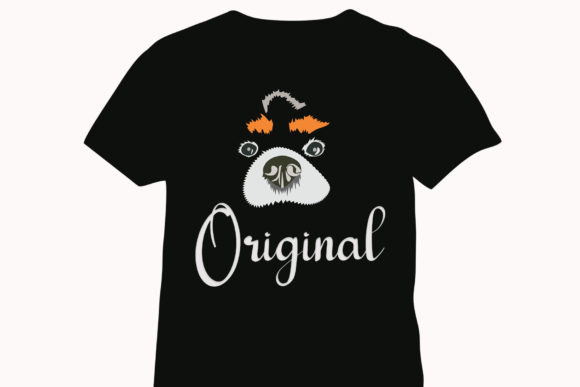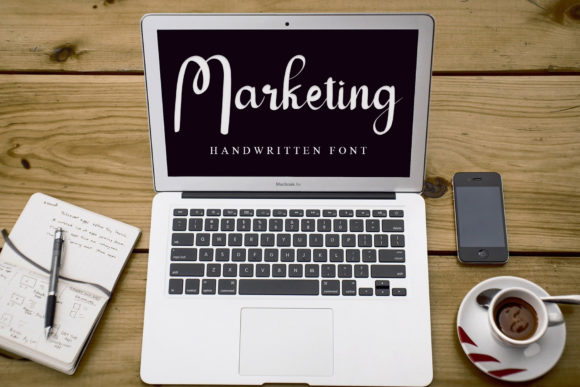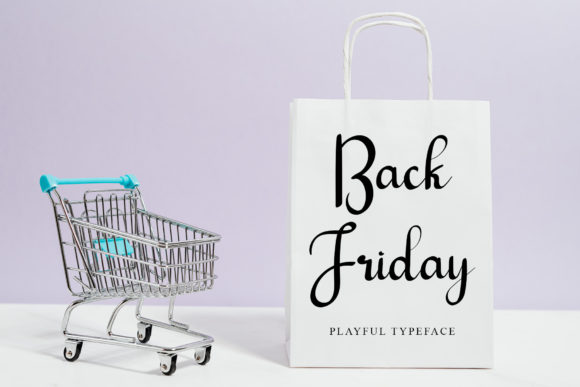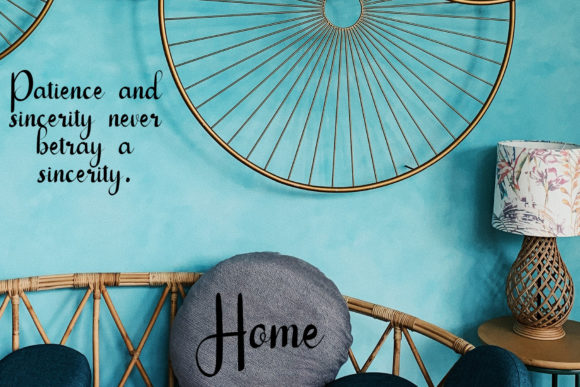
About Special Father Day Font
Special Father Day is a lovely and delicate script font that exudes elegance and class. This font was particularly crafted for those who need a beautiful and refreshing look to their designs.